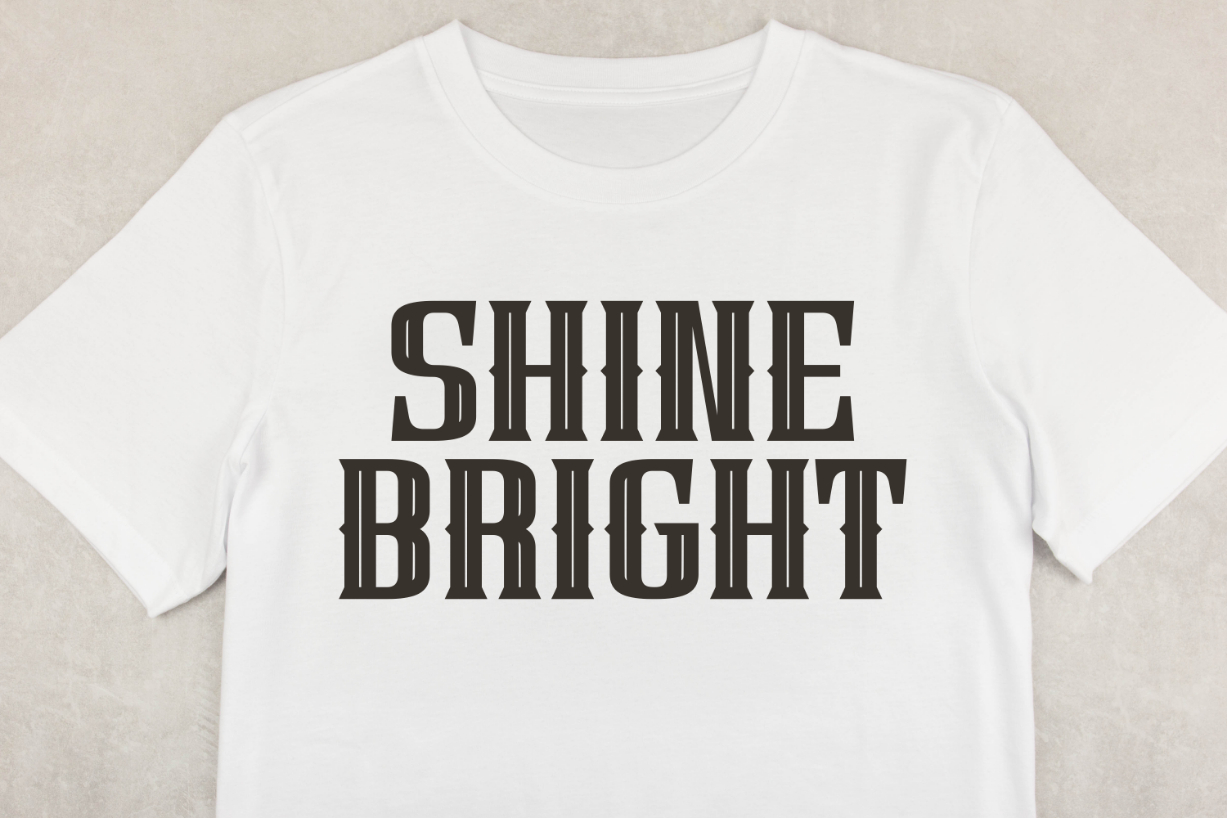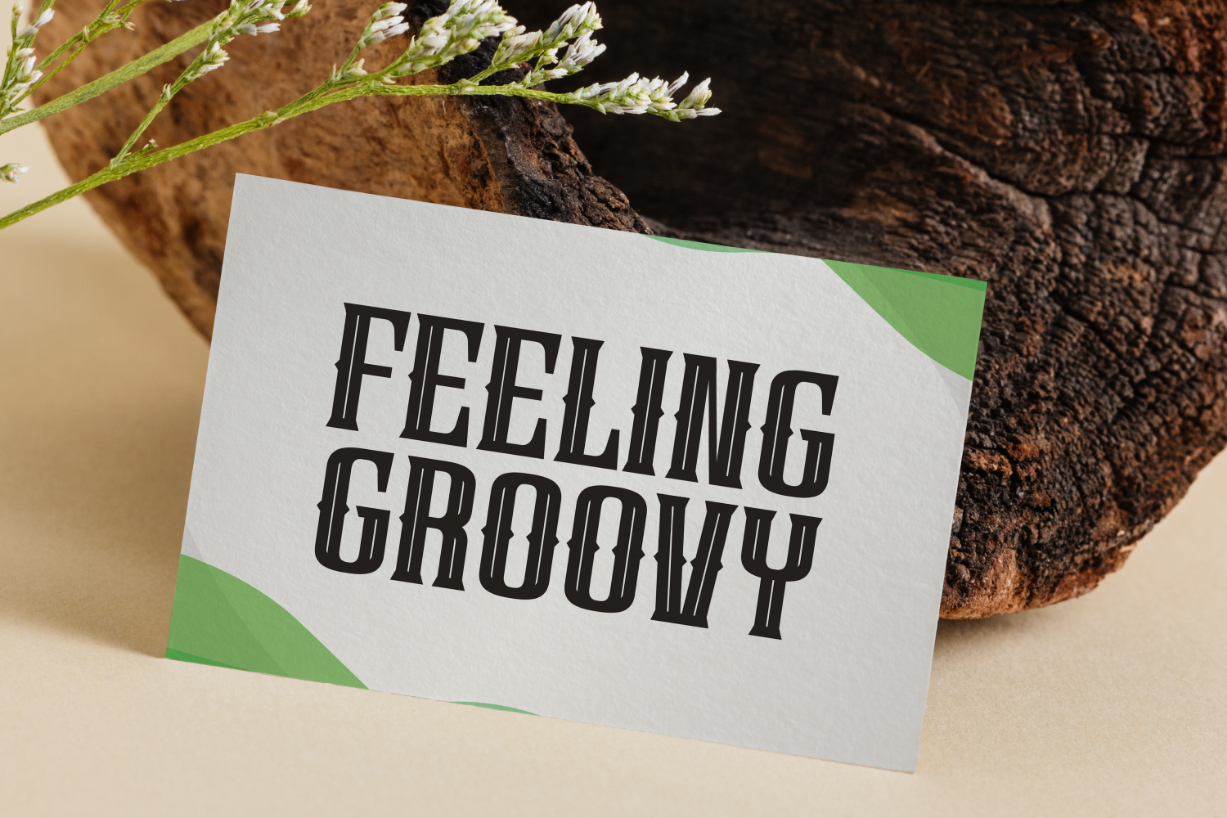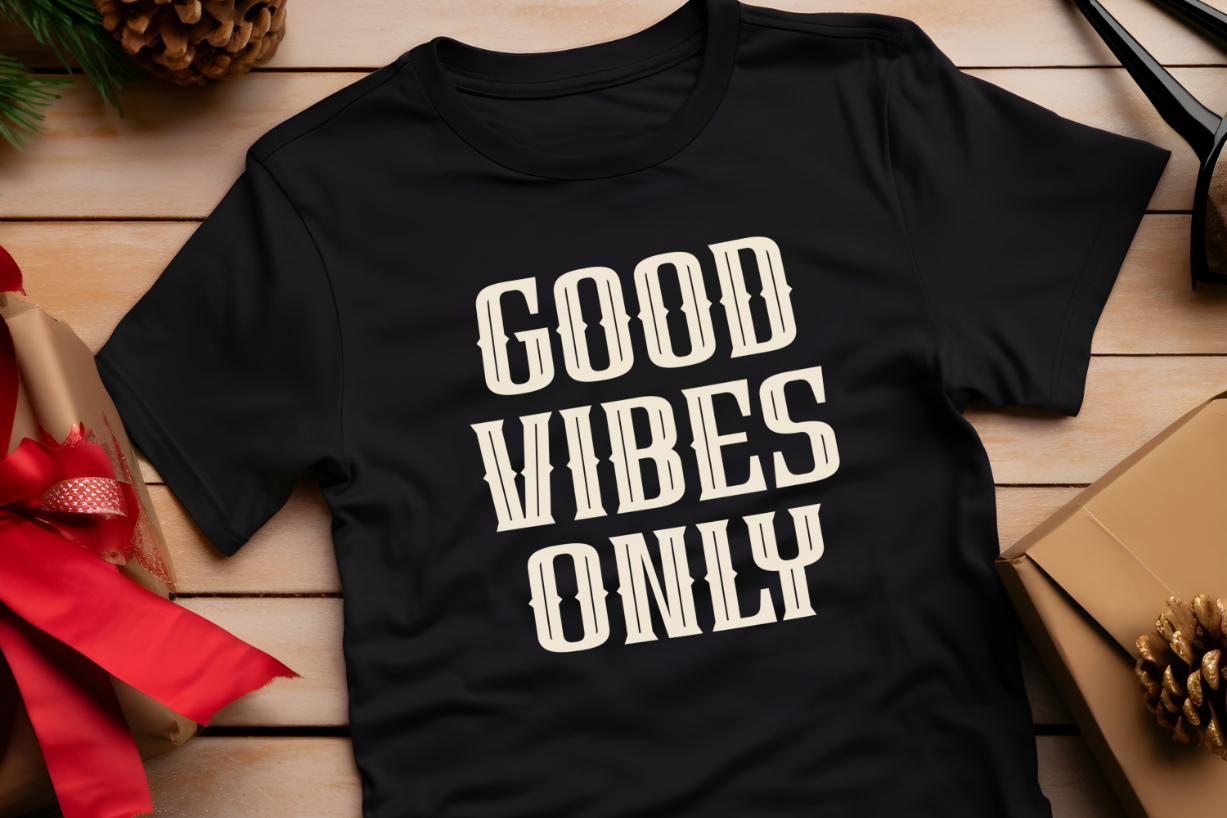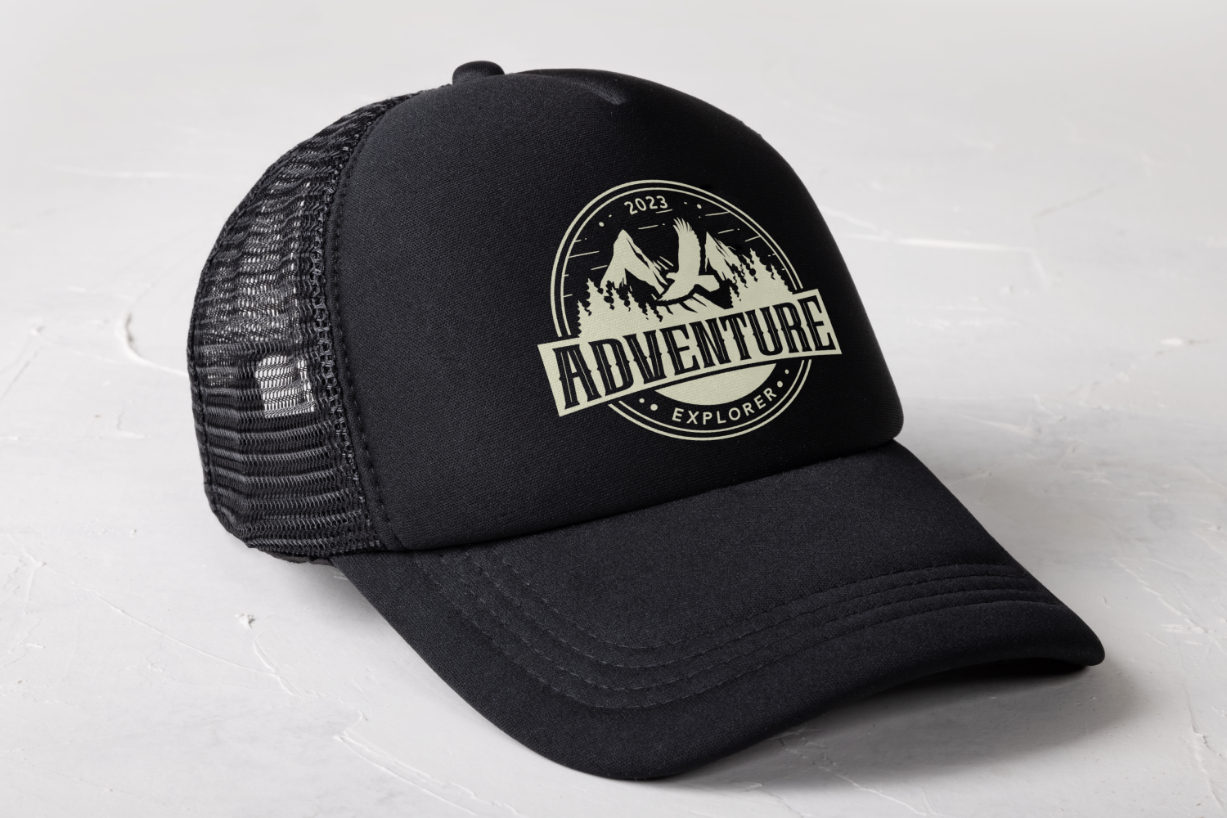
Melta Font
About Melta Font
Melta is an excellent blackletter font. Add a bold and striking look to your typography designs with this impressive typeface that has the potential to elevate any creation! Choose it for your next creative project, and you will love the results it delivers.